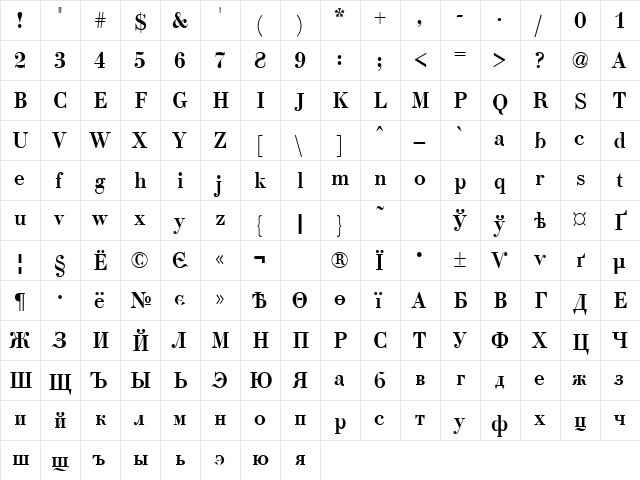
ELIZ2_A.Z_PS Bold
Design Context for ELIZ2_A.Z_PS Typeface
ELIZ2_A.Z_PS offers clean, dependable letterforms without strong stylistic allegiance, making it a practical choice for designers who need flexibility. The heavy weight commands attention and anchors typographic hierarchies.